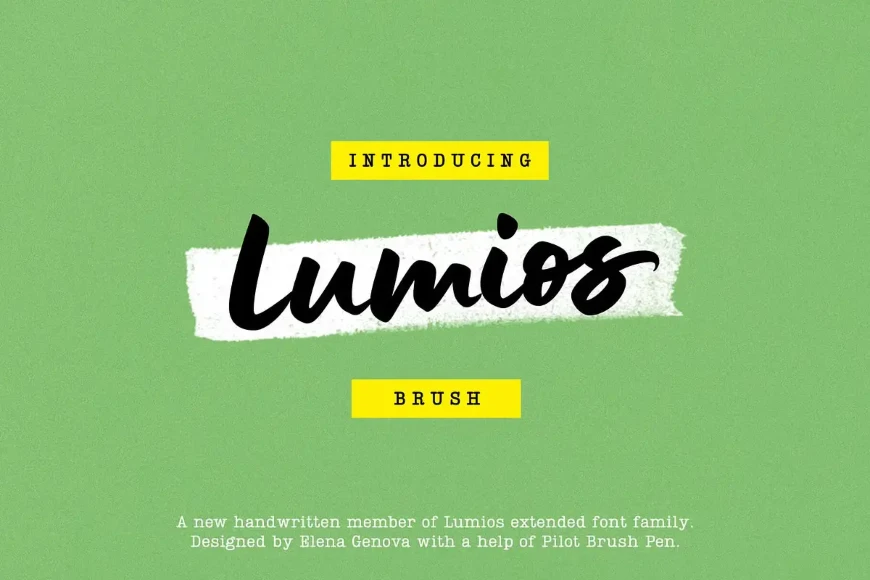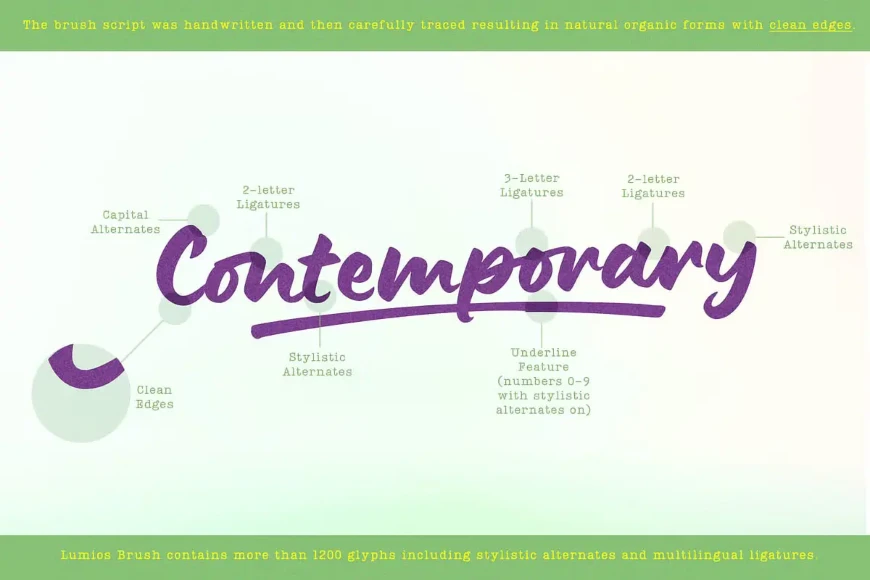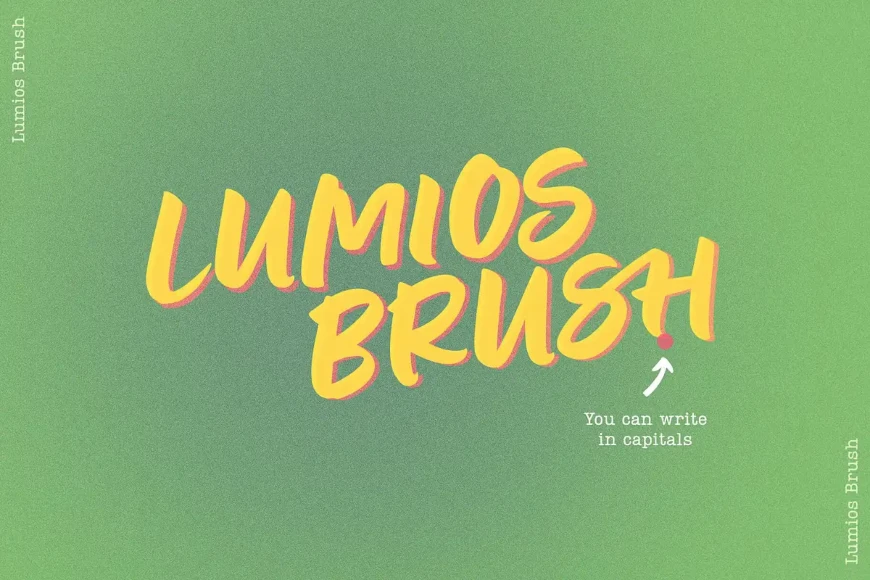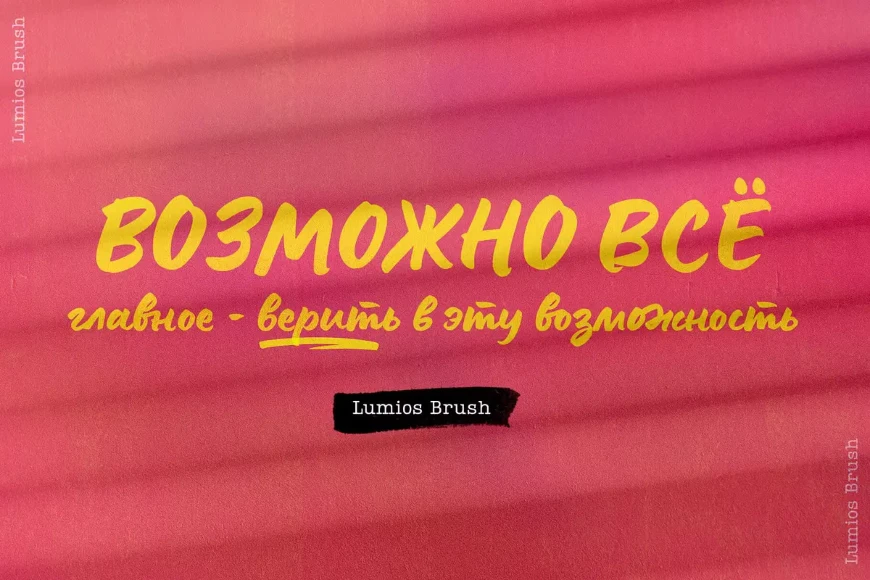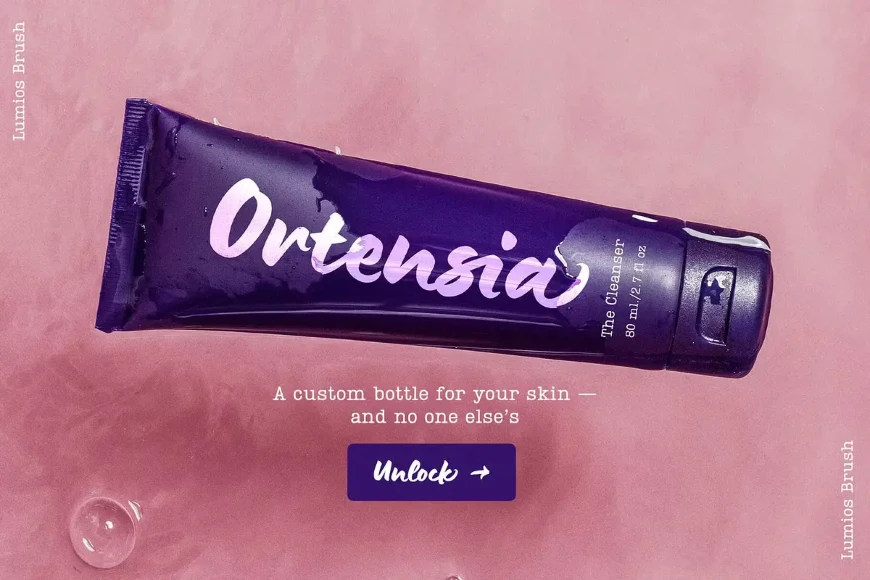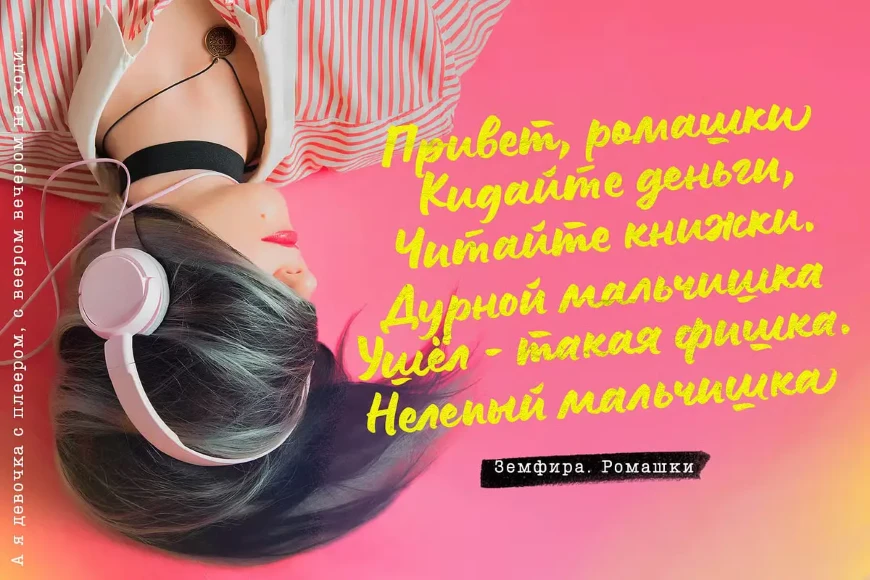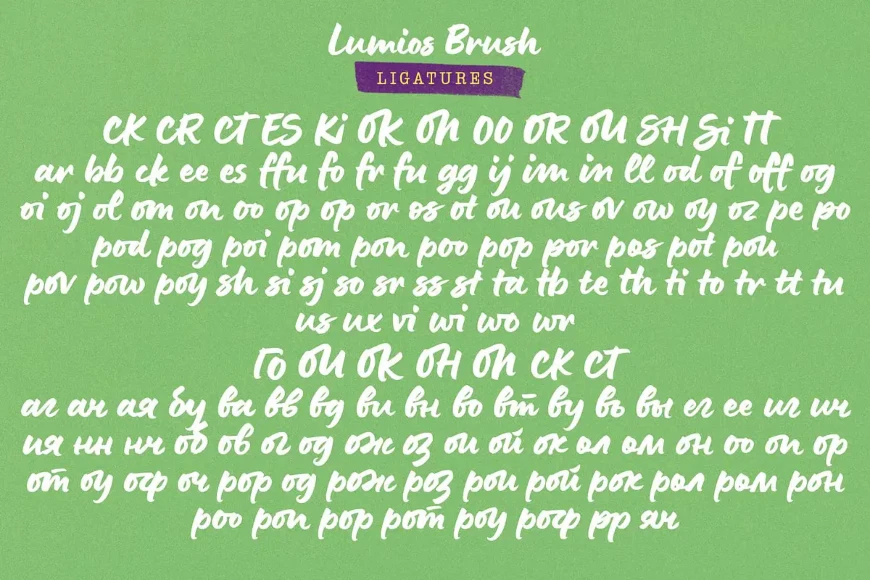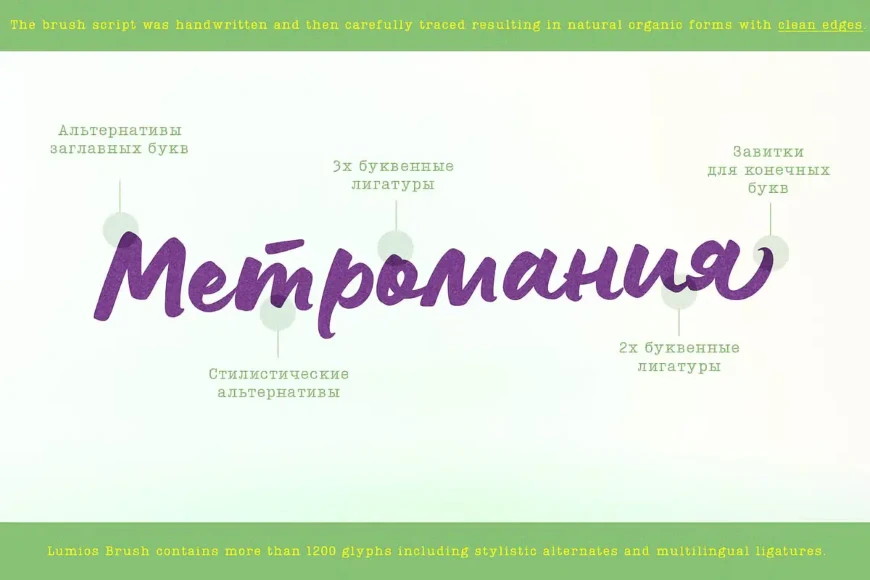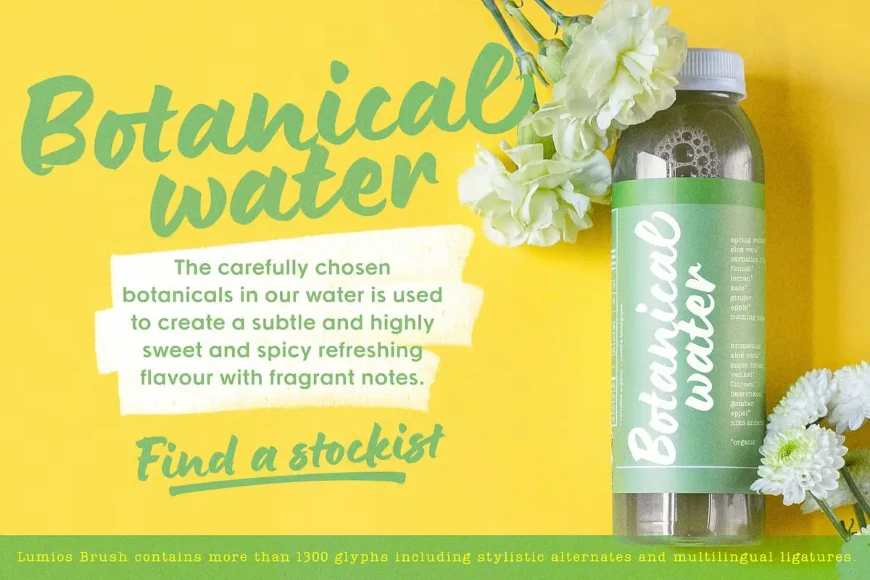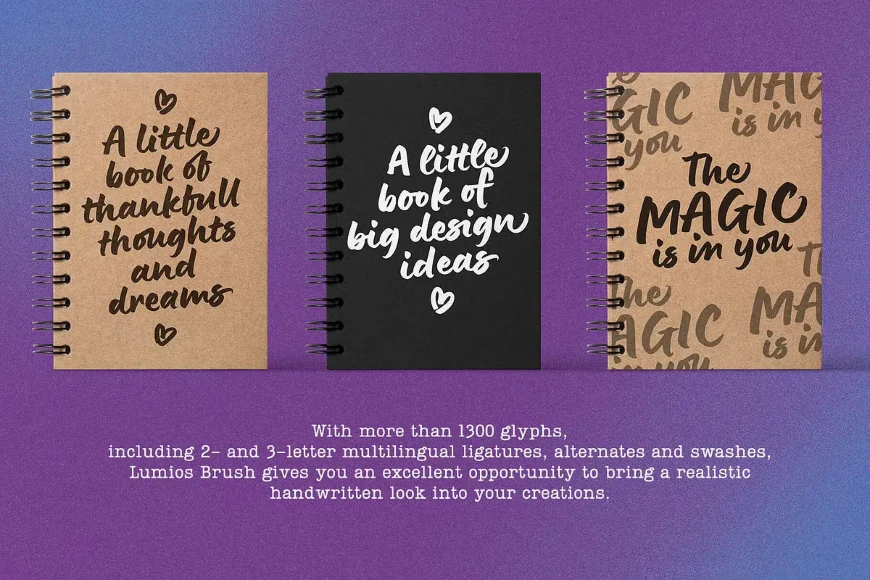
Lumios Brush
By Elena Genova
Lumios Brush Regular
Lumios Brush is a contemporary hand-lettered typeface in the Lumios family. It was written using a Pilot Brush Pen on glossy paper, allowing smooth movement and clean edges. Like Lumios Marker, this Brush sibling is multilingual with Latin and basic Cyrillic support. The use of this design will also benefit from 2- and 3-letter ligatures, stylistic alternates and swashes, underlines, arrows, and a few heart symbols, giving the words a more spontaneous, authentically lettered look.